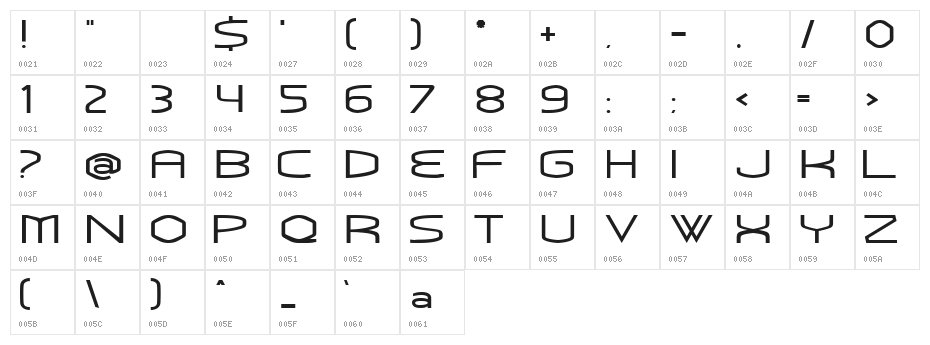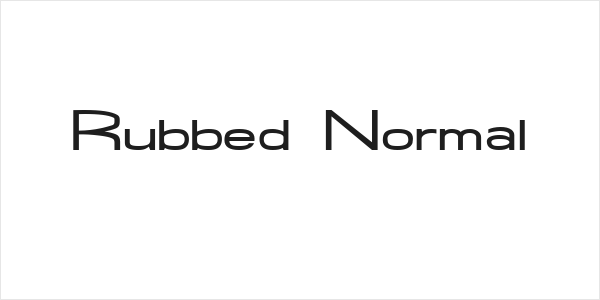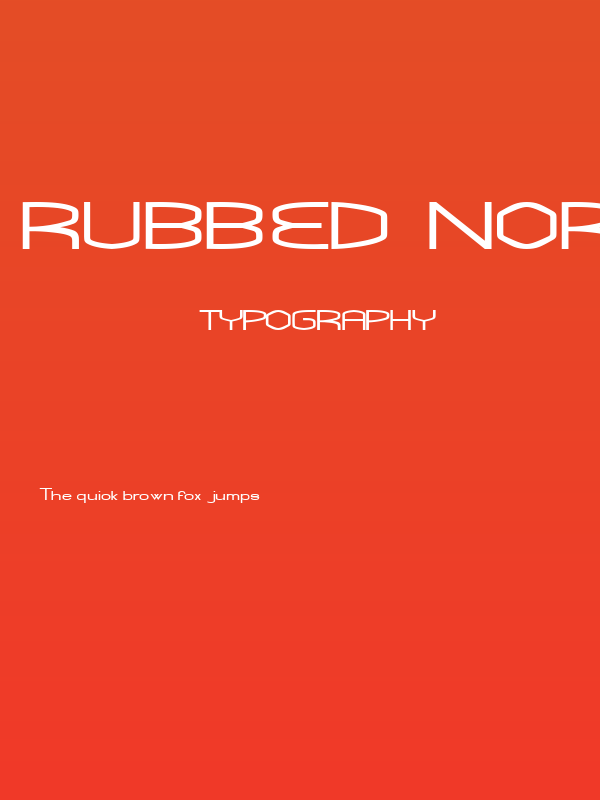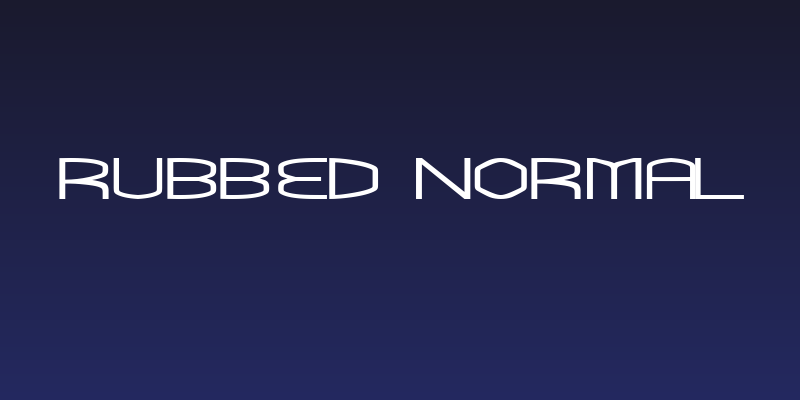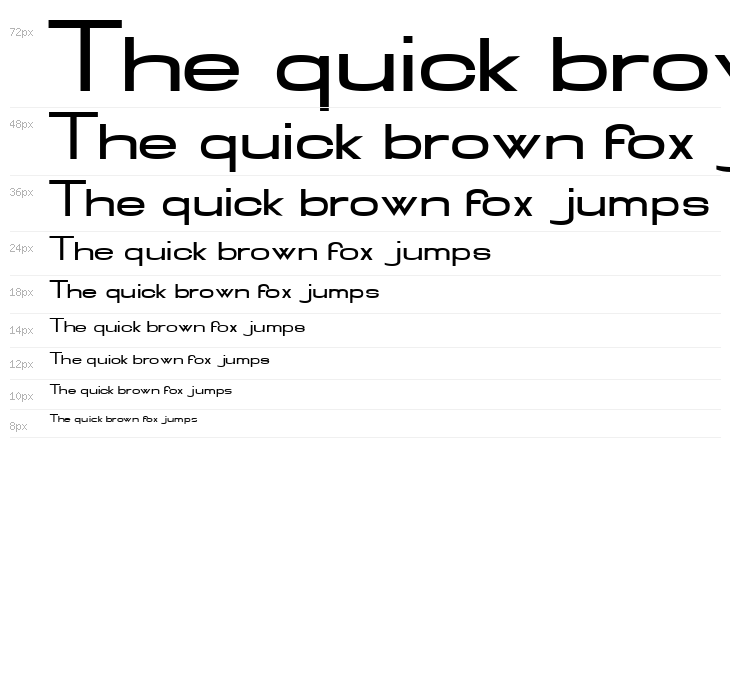
Rubbed Normal Font
Rubbed Normal Description
This font features a modern and sleek design with clean, geometric lines. The uppercase letters are uniform in height, creating a balanced and cohesive look. The lowercase letters maintain a similar geometric style, with rounded edges that add a touch of softness to the overall appearance. The numbers are bold and easily distinguishable, making them suitable for various applications. Special characters are included, maintaining the same geometric and modern aesthetic. This font is versatile, offering a contemporary feel that can enhance digital and print projects.
| Use Case | Headlines, Logos, Digital interfaces |
| Proposed Projects | Ideal for tech branding, digital interfaces, modern advertising, and minimalist design projects. |